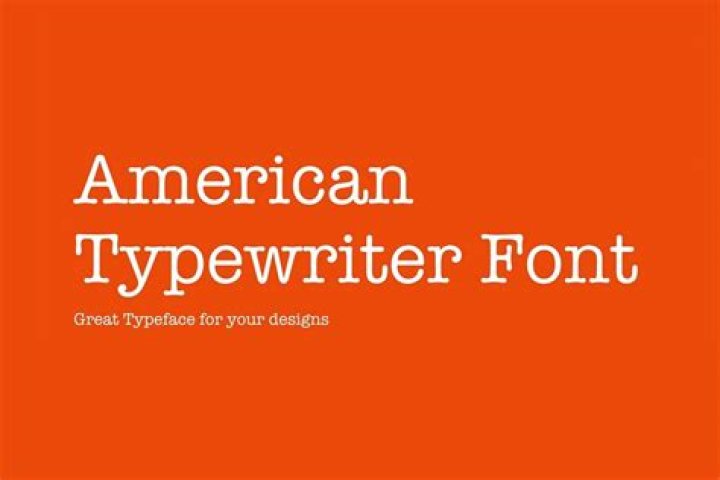
American typewriter font is a serif font….Font Information.
What fonts are similar to American Typewriter?
17 of the best typewriter fonts
- Thesis Typewriter. Typewriter fonts: you can almost hear the clacking of this one (Image credit: Ana Parracho)
- Detective.
- FF Trixie.
- Letter Gothic.
- Olivetti Typewriter.
- Courier M.
- Colón Mono.
- Erased Typewriter 2.
What Google font looks like a typewriter?
About Special Elite mimics the Smith Corona Special Elite Type Number NR6 and Remington Noiseless typewriter models. A little bit of inked up grunge and a little old school analog flavor work together to give you a vintage typewriter typeface for your website and designs.
What is the I Love NY font?
American Typewriter
The logo consists of the capital letter I, followed by a red heart symbol (❤), below which are the capital letters N and Y, set in the rounded slab serif typeface American Typewriter.
Which font is most like a typewriter?
Hammer Keys. Out of the fonts we’ve seen so far, Hammer Keys is the one that comes the closest to capturing the style of an old typewriter.
Does Google have a typewriter font?
Often you might have this question: “Is there any typewriter font in Google Docs? “ And the answer is “Yes.” It has some inbuilt typewriter fonts such as Courier prime, Cutive Mono, Lekton, Special Elite.
What font did Milton Glaser create?
In 1970, Glaser designed his namesake typeface, Glaser Stencil, which drew inspiration from geometric sans-serif fonts such as Futura and Avant Garde.
Who designed the American typewriter font?
Joel Kaden and Tony Stan worked together and designed the American Typewriter font. It is a sans-serif typeface. This font was included in the list of ITC. And then It was released in 1974.
What is the difference between ITC and American typeface?